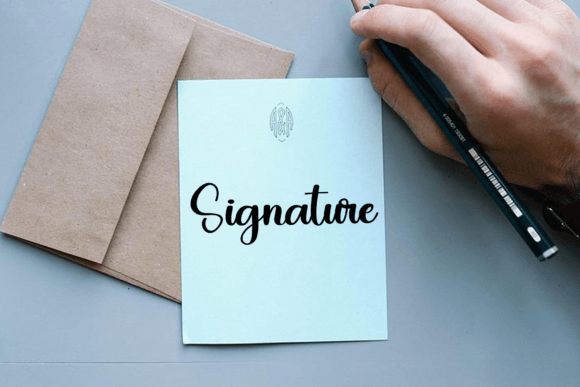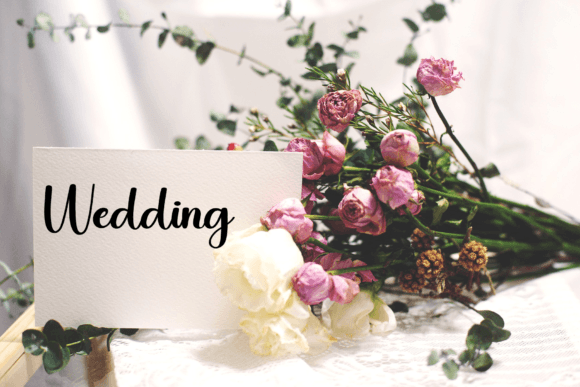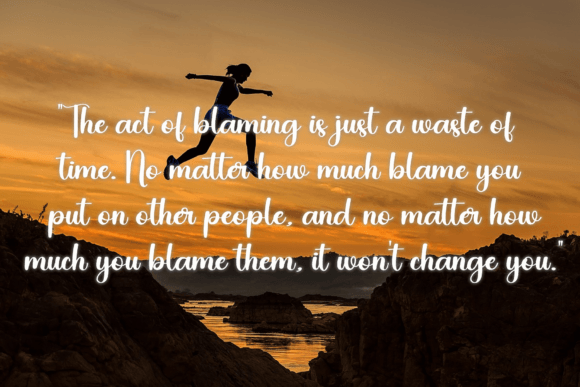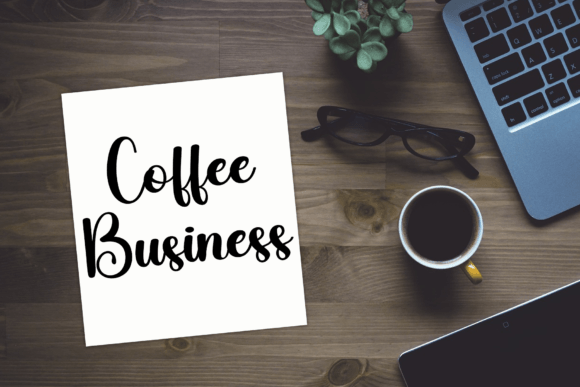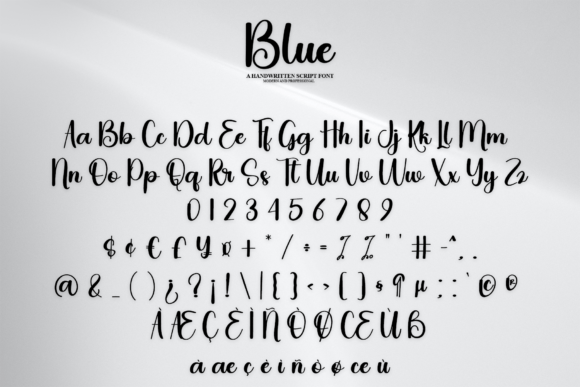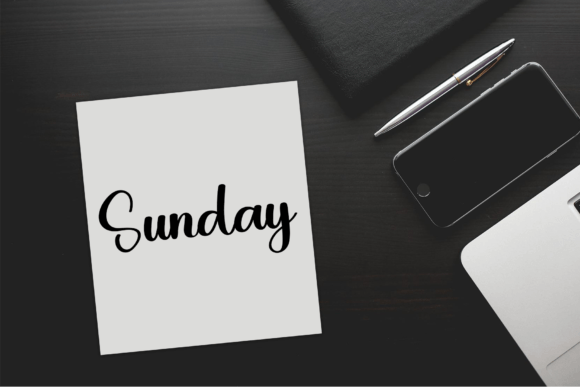
Introducing Blue Font: The Perfect Handwritten Font for Your Creative Projects
Are you a designer, crafter, or DIY enthusiast looking for a unique and stylish font to elevate your projects? Look no further than Blue Font, a carefully crafted, round-lettered handwritten font that’s perfect for adding a personal touch to your creations. In this article, we’ll dive into the features and benefits of Blue Font, and explore how you can use it to take your projects to the next level.
What is Blue Font?
Blue Font is a one-of-a-kind, handwritten font that’s been meticulously designed to bring a touch of elegance and sophistication to your projects. Its round, cursive letters are easy to read and have a friendly, approachable feel that’s perfect for a wide range of applications. Whether you’re creating titles, invitations, letters, or any other type of product, Blue Font is the perfect choice.
Key Features of Blue Font
- Unique and Handwritten: Blue Font is a truly unique font that’s been handcrafted with love and care. Its handwritten feel makes it perfect for adding a personal touch to your projects.
- Round-Lettered: The round, cursive letters of Blue Font are easy to read and have a friendly, approachable feel that’s perfect for a wide range of applications.
- Versatile: Blue Font can be used for a wide range of projects, from titles and invitations to letters and more.
- Elegant and Sophisticated: Blue Font has an elegant and sophisticated feel that’s perfect for designers, crafters, and DIY enthusiasts who want to add a touch of class to their projects.
How to Use Blue Font in Your Projects
Blue Font is incredibly versatile, and can be used in a wide range of projects. Here are just a few ideas to get you started:
- Titles and Headings: Use Blue Font to create beautiful, eye-catching titles and headings for your projects. Whether you’re creating a blog post, a social media graphic, or a print project, Blue Font is the perfect choice.
- Invitations: Blue Font is perfect for creating beautiful, handwritten-style invitations for weddings, parties, and other special events.
- Letters and Correspondence: Add a personal touch to your letters and correspondence with Blue Font. Whether you’re writing a love letter, a thank-you note, or a business letter, Blue Font is the perfect choice.
- Crafting and DIY Projects: Blue Font is perfect for crafters and DIY enthusiasts who want to add a personal touch to their projects. Use it to create beautiful labels, tags, and other embellishments for your crafts.
Tips and Tricks for Using Blue Font
Here are a few tips and tricks to help you get the most out of Blue Font:
- Experiment with Different Sizes: Blue Font looks great in a wide range of sizes, from small and delicate to large and bold. Experiment with different sizes to find the one that works best for your project.
- Pair it with Other Fonts: Blue Font pairs beautifully with other fonts, including sans-serif fonts, and script fonts. Experiment with different font combinations to find the one that works best for your project.
- Add a Personal Touch: Blue Font is all about adding a personal touch to your projects. Don’t be afraid to experiment and add your own unique style to your work.
Blue Font is a unique and versatile handwritten font that’s perfect for designers, crafters, and DIY enthusiasts who want to add a personal touch to their projects. With its round, cursive letters and elegant feel, Blue Font is the perfect choice for titles, invitations, letters, and many other types of products. Whether you’re a seasoned designer or just starting out, Blue Font is a must-have font that’s sure to elevate your projects to the next level.